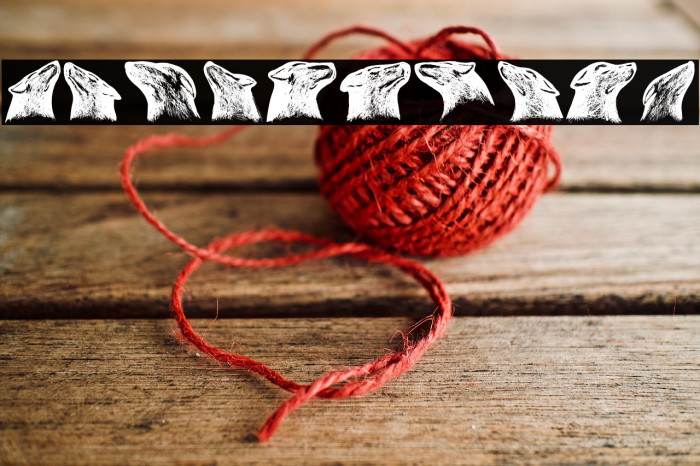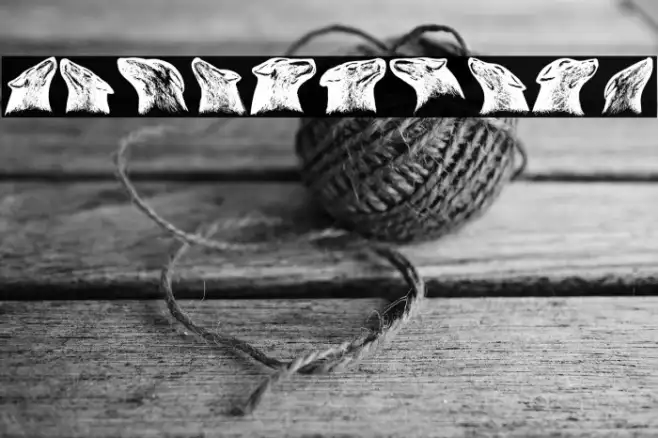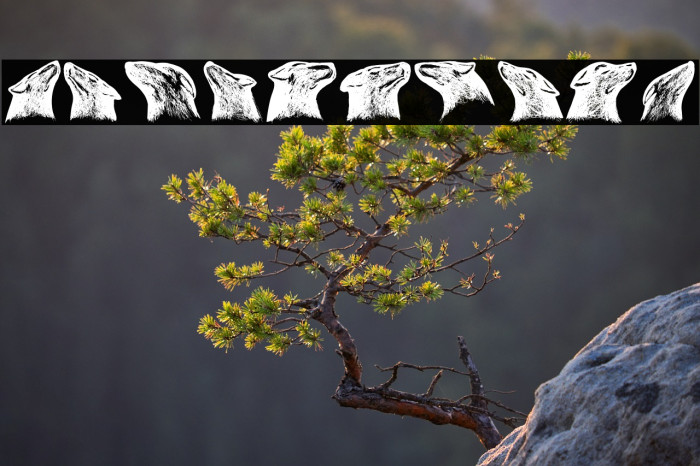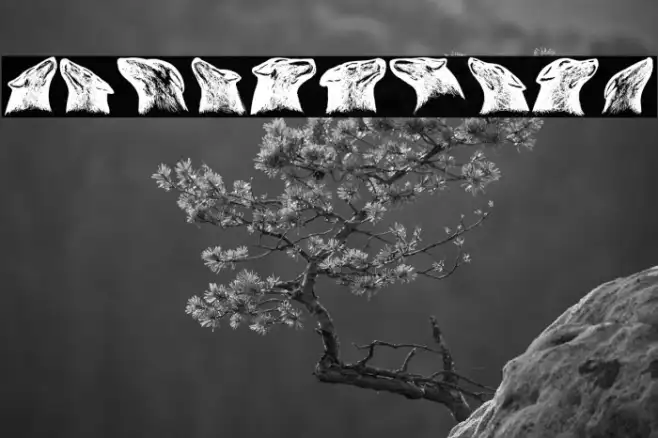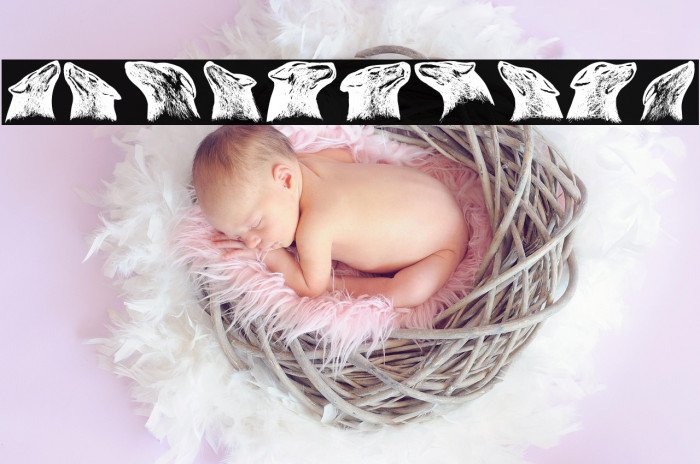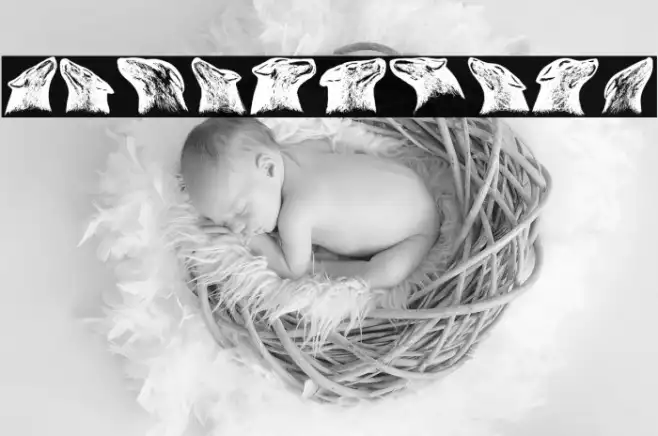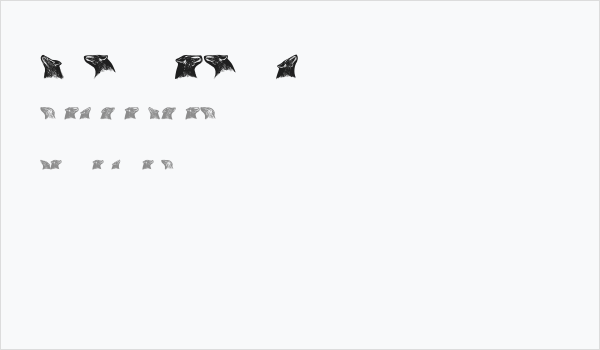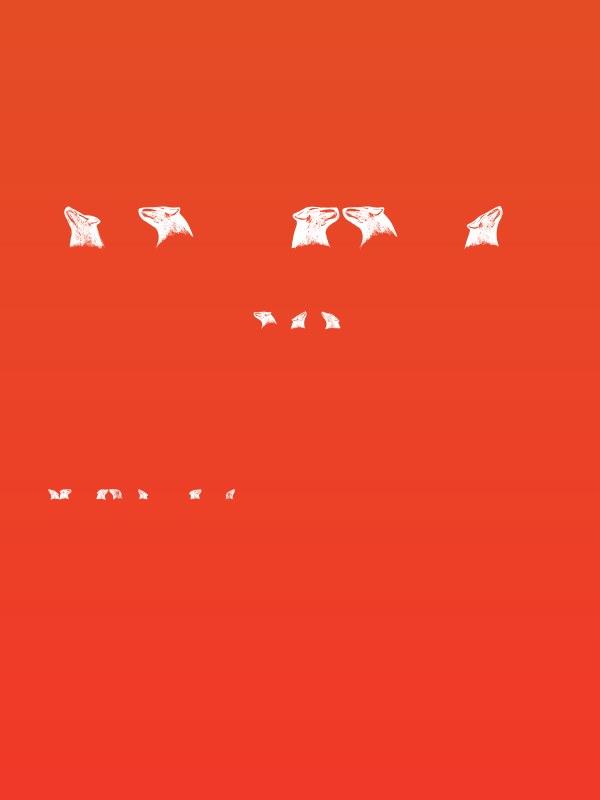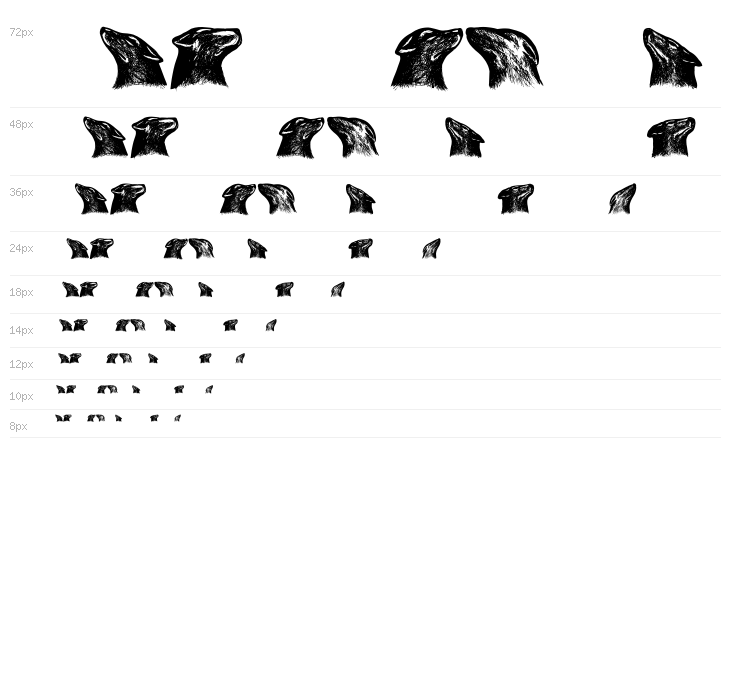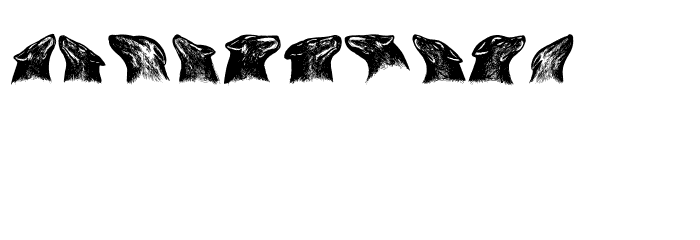
Dogs Regular Font
A decorative font composed of detailed, hand-drawn dog head illustrations representing each character, with a consistent black and white sketch style.
Overall StyleDecorative, Playful, Artistic
Use CaseLogos, Headlines, Posters, Themed events
Proposed ProjectsPet branding, animal-themed posters, children's books, novelty invitations, playful packaging.